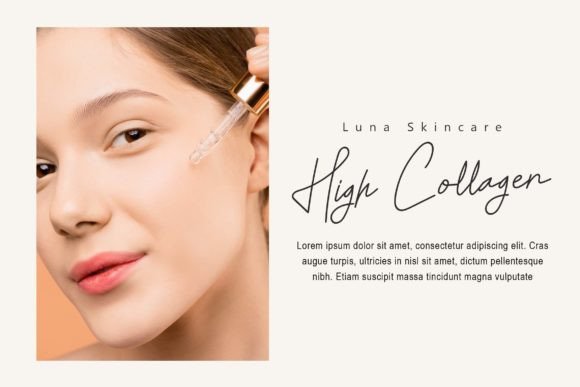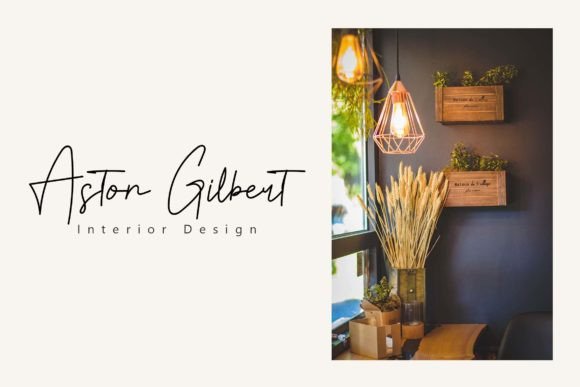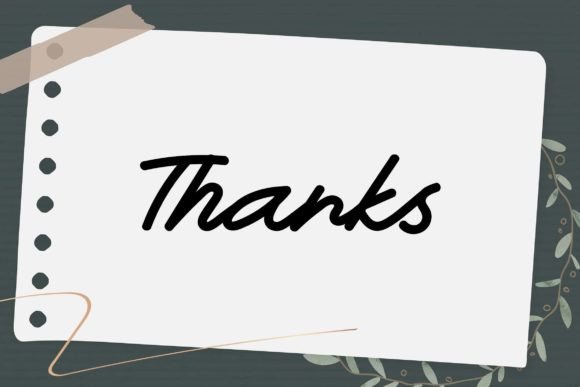
Introduction to Hillton Font
Have you ever found yourself staring at a blank page, desperate for the perfect font to bring your creative project to life? For designers, the search for that elusive, high-quality typeface can be a daunting task. But what if I told you that there’s a font that can elevate your designs and leave a lasting impression?
Enter the Hillton Font, a stylish and sophisticated typeface that’s perfect for luxury branding, high-end invitations, and editorial design. Its elegant, fluid letters are inspired by traditional calligraphy, making it a valuable design resource for any creative project.
Key Features of Hillton Font
- High-quality design resource ideal for creative projects, offering a unique aesthetic.
- Unique characteristics include elegant lines, subtle curves, and a refined feel, making it perfect for luxury and high-end branding.
Honest Review: Hillton Font
As a designer, I’m always on the lookout for high-quality design resources that can elevate my creative projects. The Hillton Font is one such resource that caught my attention, and I’m excited to share my honest review with you.
What works well with the Hillton Font is its modern and sleek design, perfect for creating a sophisticated look in your designs. The font is clean, legible, and versatile, making it suitable for a wide range of creative projects, from branding and marketing materials to digital products and print materials. I also appreciate that the font has a transparent background, making it easy to combine with other design elements.
- ✨ Modern and sleek design
- ✨ Clean and legible font
- ✨ Versatile and suitable for various creative projects
- ✨ Transparent background for easy combination with other design elements
However, there are some limitations to consider. The font may not be as bold or attention-grabbing as some other fonts, and it may not be suitable for projects that require a more dramatic or eye-catching look. Additionally, the font is available for free download, which may not be ideal for commercial use or high-end projects.
Overall, the Hillton Font is a solid design resource that can add a touch of sophistication to your creative projects. While it may have some limitations, it’s a great option for designers who want a clean and modern font that’s easy to use.
Common Use Cases for Hillton Font
Hillton Font is ideal for creative projects, such as graphic design, digital art, or even web design. Use it for headings, titles, or even body text to add a professional touch to your project. You can also use Hillton Font for logos, typography, or even graphics to add a creative touch to your design.